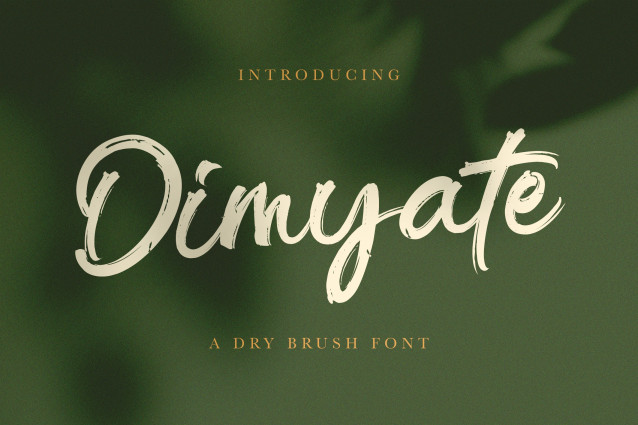
Dimyate Brush Font
Dimyate Brush Font is a dynamic dry brush font that blends artistic spontaneity with refined elegance. Designed to capture attention with its bold strokes and fluid motion, this font is perfect for brands and creatives seeking a modern yet organic touch. Whether used in branding, advertising, editorial design, or social media graphics, Dimyate delivers a handcrafted feel with striking visual impact. Featuring multilingual support and natural ligatures, it ensures seamless versatility across different languages and design needs. Elevate your typography with Dimyate—a perfect fusion of raw energy and sophisticated charm.